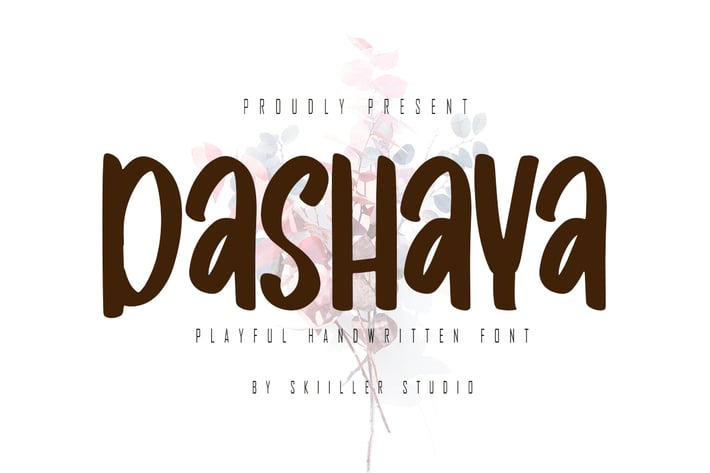
Dashaya - Playful Handwritten Font
Dashaya Handwritten Display Font. It looks beautiful on a variety of designs requiring a personalized style, such as wedding invitations, thank you cards, weddings, greeting cards, logos and so on. This font is PUA encoded which means you can access all of the glyphs